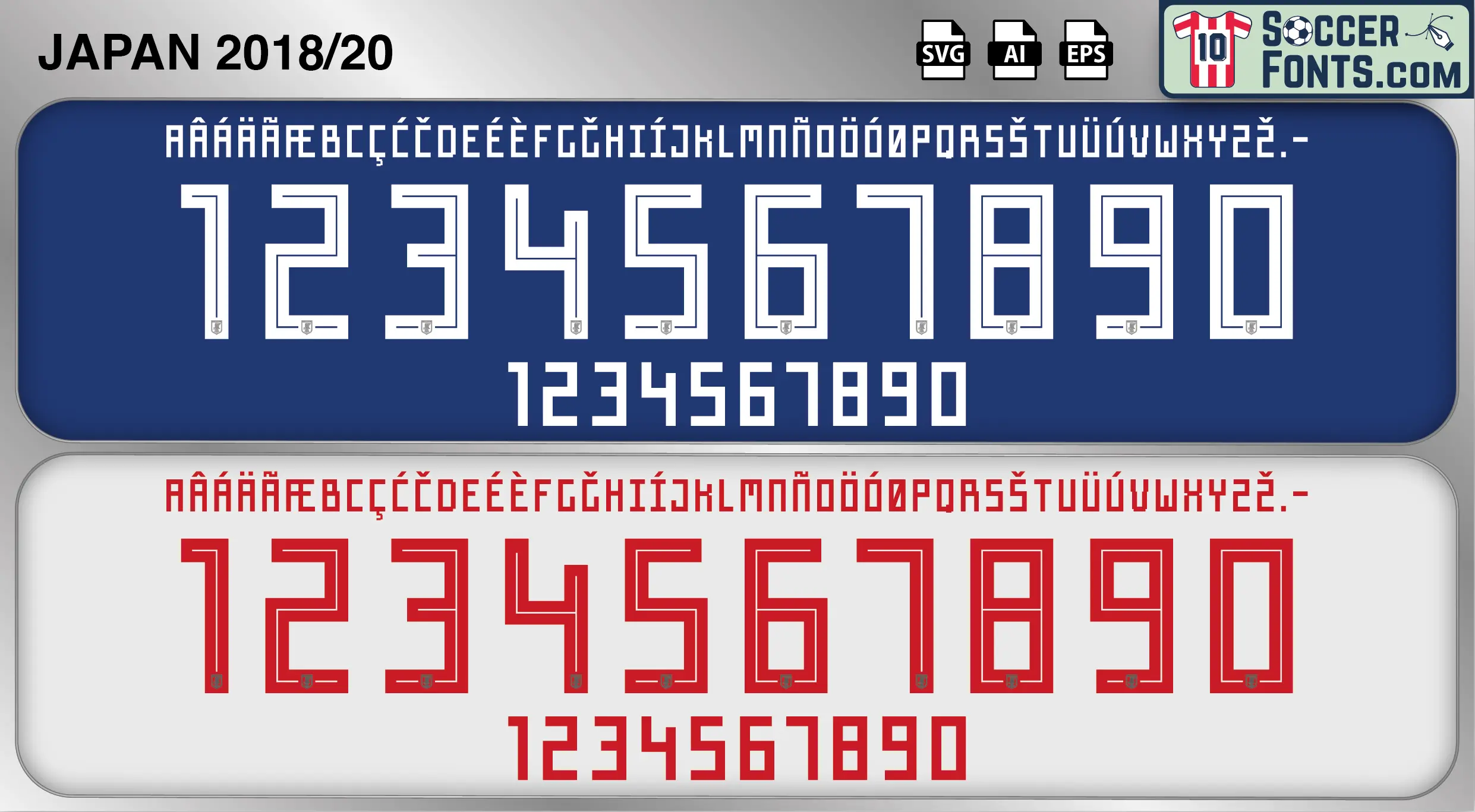
Japan 2018-20 Font
The Japan 2018-20 font is an editable soccer jersey lettering design in vector format inspired by the Japan kit style used during the 2018-20 football seasons. This football font artwork is prepared for football shirt recreations, custom jersey projects, football kit mockups and sports graphic design workflows.
Japan entered the 2018 FIFA World Cup in Russia with one of the most recognizable football identities in Asian football and produced one of the tournament’s most memorable knockout matches against Belgium. The squad featured players such as Keisuke Honda, Shinji Kagawa, Maya Yoshida, Yuya Osako and Genki Haraguchi during an important transitional era between experienced international players and a younger generation preparing for future tournaments. The period also included the 2019 AFC Asian Cup campaign and the continued growth of Japanese football culture across Europe and international football audiences.
The Japan 2018-20 font became associated with modern Japanese football aesthetics, technical football culture and one of the most recognizable football shirt identities in international football. Japan football shirts from this era remained especially popular among football shirt collectors and supporters because of their connection with World Cup football, contemporary Asian football culture and the increasing global popularity of Japanese players competing in major European leagues. The 2018-20 era also reflected the growing international influence of Japanese football design, football fashion and modern tournament culture connected with the national team.